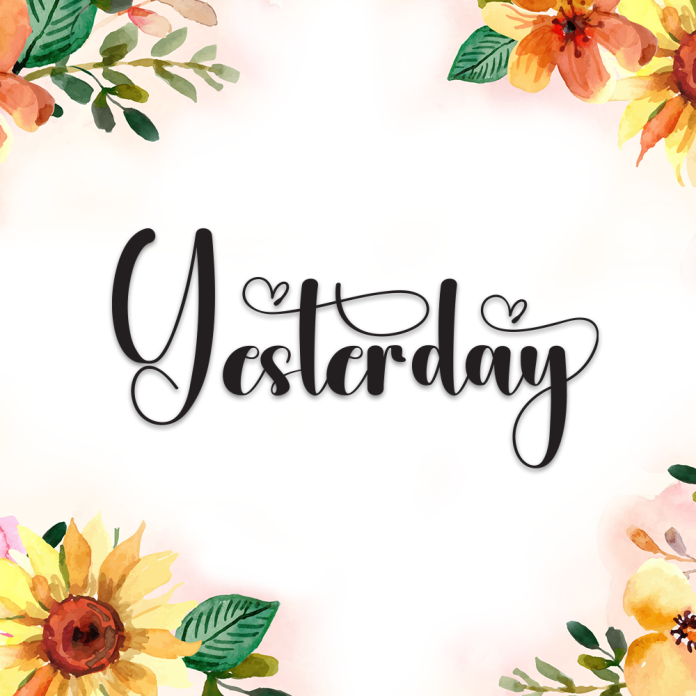
Yesterday is a graceful and nostalgic handwriting font that evokes the charm of handwritten letters from the past. With its smooth curves and flowing lines, it brings a timeless elegance to any design.
Elegant and romantic handwriting style
Natural and well-balanced letterforms